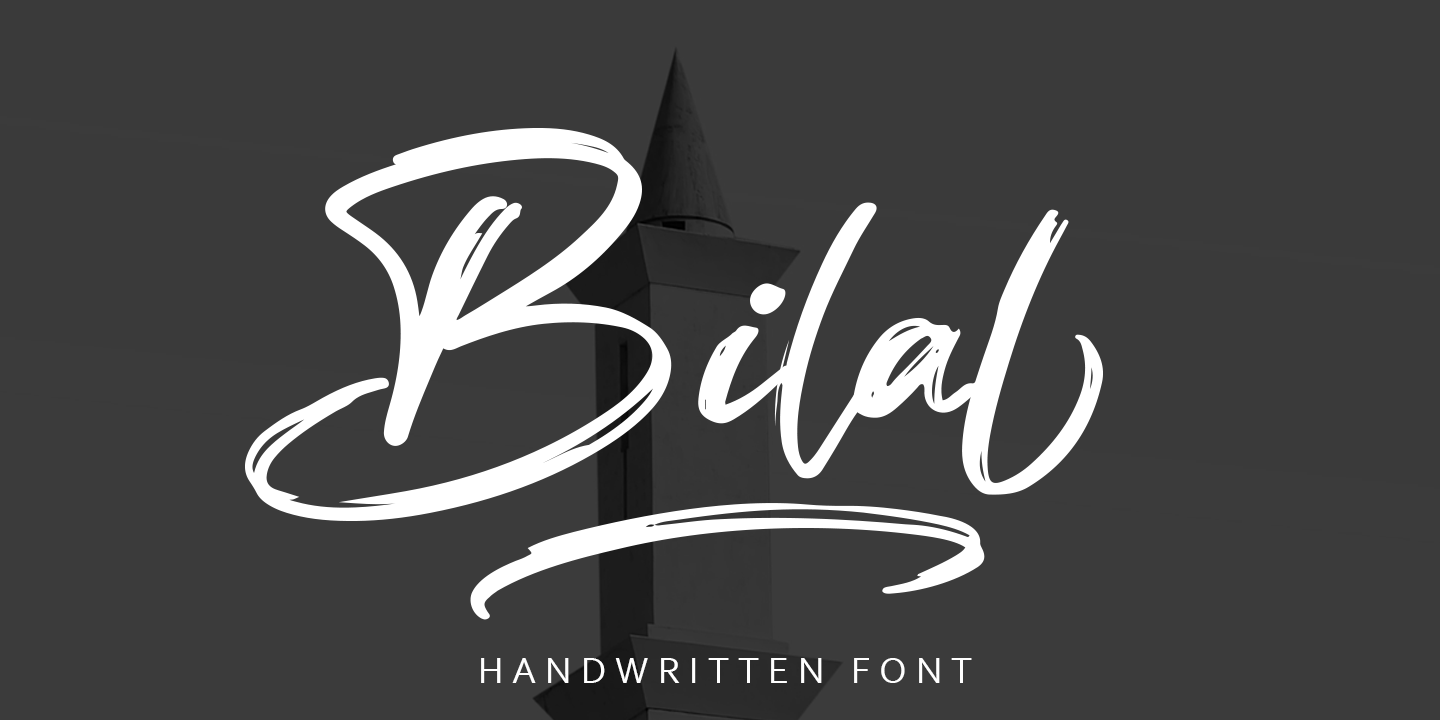
Bilal Font is perfect for multicultural branding projects, Middle Eastern cultural materials, Islamic community communications, international business identities, cultural heritage publications, diverse educational content, global organization logos, and inclusive design applications. This distinguished typeface excels in applications requiring cultural sensitivity and sophisticated international appeal that honors diverse traditions while maintaining contemporary professional standards.
What makes Bilal Font exciting is its thoughtful balance of cultural authenticity and modern functionality that creates respectful representation through carefully crafted letterforms. The font features elegant character construction with refined proportions and sophisticated styling that honors cultural heritage while delivering exceptional readability and contemporary usability perfect for organizations embracing diversity and global communication excellence.
The Bilal Font family includes comprehensive weight options and stylistic variations with cultural sensitivity elements, offering designers respectful tools for creating inclusive communications. The family provides consistent elegant aesthetic with varying cultural complexity for authentic multicultural branding and international projects requiring genuine cultural appreciation and sophisticated global market positioning.
Bilal Font Free Download represents an exceptional opportunity for designers working on multicultural projects requiring cultural sensitivity and inclusive design excellence. Whether you're creating international business materials, cultural organization branding, educational multicultural content, or global community communications, this font provides the respectful character needed for authentic cultural representation and inclusive brand positioning.
The thoughtfully crafted letterforms of Bilal Font ensure optimal legibility across diverse applications while maintaining cultural sensitivity and sophisticated appeal, making it ideal for international websites, multicultural publications, and global brand communications. This versatile typeface combines cultural appreciation with contemporary technical standards for outstanding performance in modern design environments requiring authentic inclusivity and respectful international character representation.